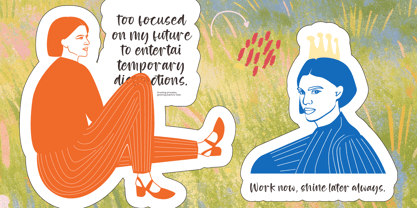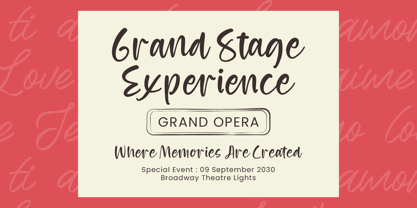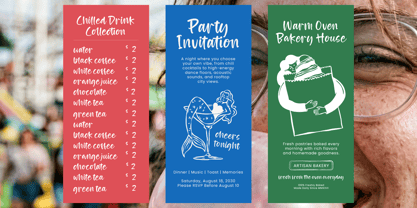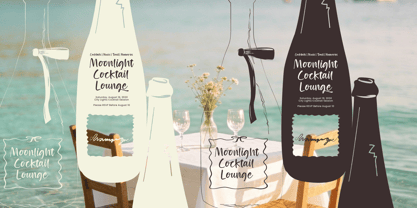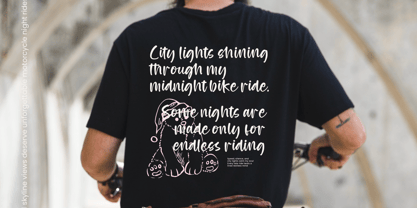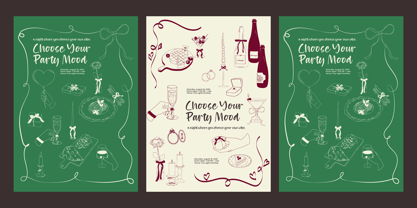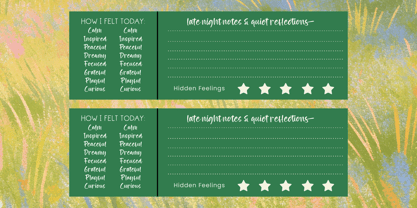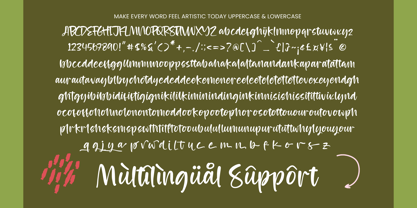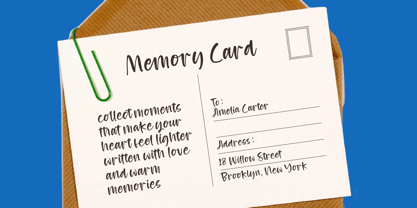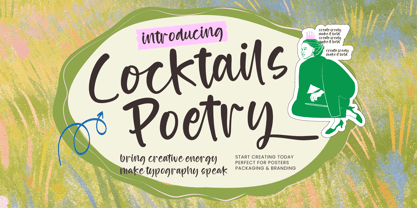
Cocktails Poetry
by Stylishtype Studio
The Cocktails Poetry Font Family was designed by Heru Utama Putra and published by Stylishtype Studio. Cocktails Poetry contains 2 styles and family package options. More about this family
Cocktails Poetry – Display Handwritten Font. This premium typeface captures a unique hand-drawn aesthetic that balances casual sophistication with artistic flair. Designed to command attention, its fluid strokes and natural letterforms provide an authentic, human touch to any digital or print project. Whether you are aiming for a chic boutique vibe or a relaxed, modern look, this display font offers the perfect stylistic foundation for your next masterpiece.
Crafted for high-impact visual storytelling, Cocktails Poetry – Display Handwritten Font is the ultimate tool for luxury branding and bespoke packaging. It is perfectly suited for editorial design, high-end event invitations, and lifestyle marketing campaigns that require a distinct personality. From logo development to eye-catching social media assets, this font bridges the gap between professional polish and creative expression, ensuring your brand stands out in a competitive marketplace.